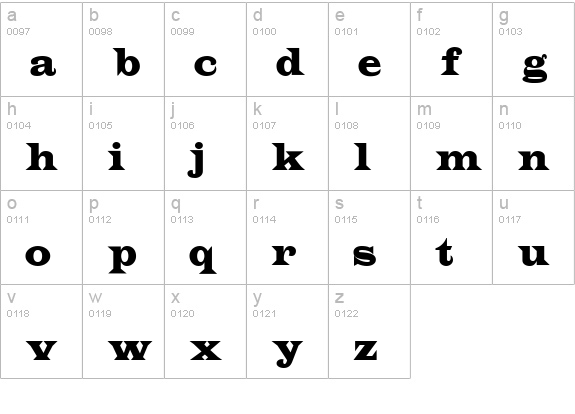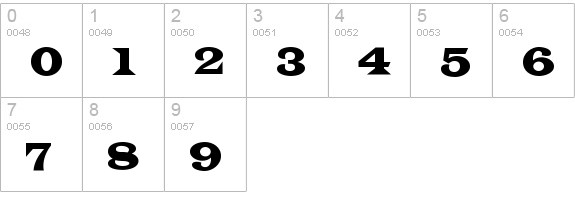
Indubitably NF Font Details
Indubitably NF font exudes a sense of sophistication and elegance with its sleek and modern design. This versatile typeface strikes the perfect balance between traditional and contemporary styles, making it a great choice for a wide range of design projects. The clean lines and sharp edges of Indubitably NF give it a timeless appeal that is sure to make your text stand out. What's even better is that Indubitably NF is available for free download at FontsMarket.com. This means that you can easily access this stunning font and enhance your projects without any cost. Whether you're working on a branding project, website design, or any other creative endeavor, Indubitably NF is sure to add a touch of sophistication to your work. Don't miss out on the opportunity to elevate your designs with this exceptional font that is just a download away.